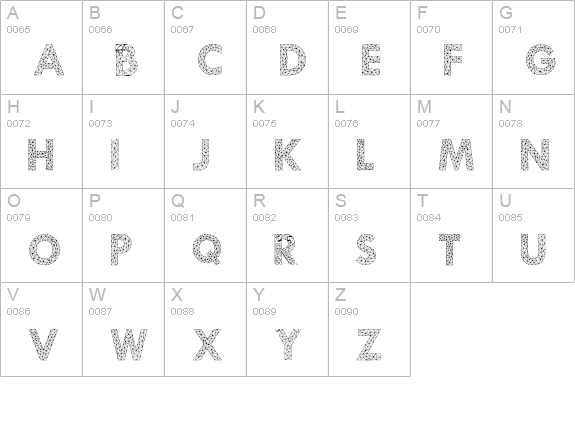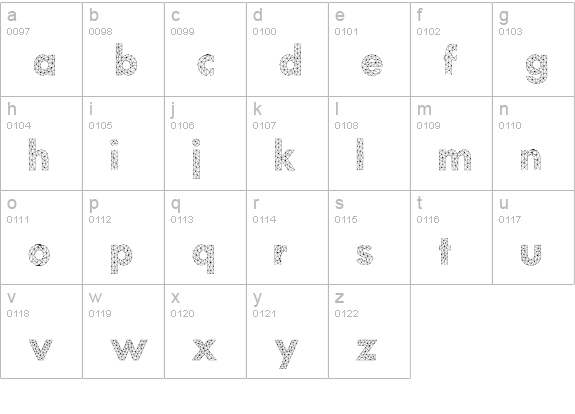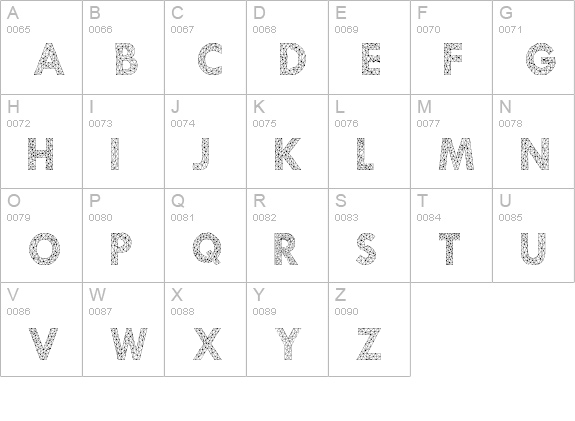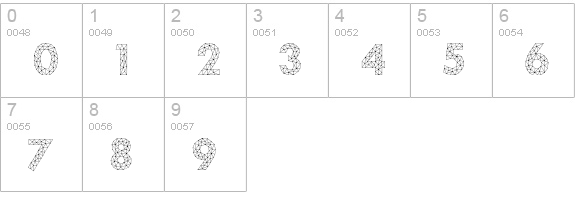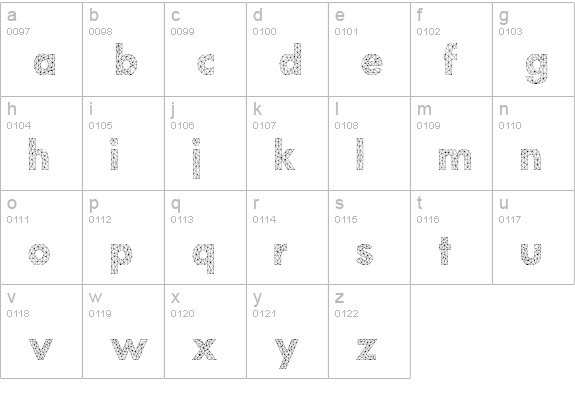
Aroly font is a stunningly elegant typeface that exudes sophistication and charm. Its clean lines and graceful curves make it versatile and suitable for a wide range of design projects. Whether you're creating a wedding invitation, a logo for a luxury brand, or a beautiful piece of typography for a magazine spread, Aroly font is sure to make a lasting impression. What makes Aroly font even more appealing is that it is available for free download at FontsMarket.com. This means that you can effortlessly bring a touch of elegance to your designs without breaking the bank. With just a few clicks, you can unlock the beauty and versatility of Aroly font and elevate your projects to new heights. But Aroly font is not just about looks. It also boasts excellent readability, ensuring that your message comes across clearly and effectively. Its well-crafted letterforms and generous spacing make reading a pleasure, whether on a screen or in print. Designed with attention to detail, Aroly font offers a wide range of weights and styles, allowing you to find the perfect match for your project. From the delicate and refined Light weight to the bold and impactful Black weight, this font has all the options you need to create stunning typographic compositions. So why wait? Download Aroly font for free today at FontsMarket.com and experience the beauty and versatility it has to offer. Whether you're a professional designer or a creative enthusiast, this font will undoubtedly become a valuable addition to your toolkit. Don't miss out on the opportunity to bring elegance and sophistication to your designs with Aroly font, freely available at FontsMarket.com.